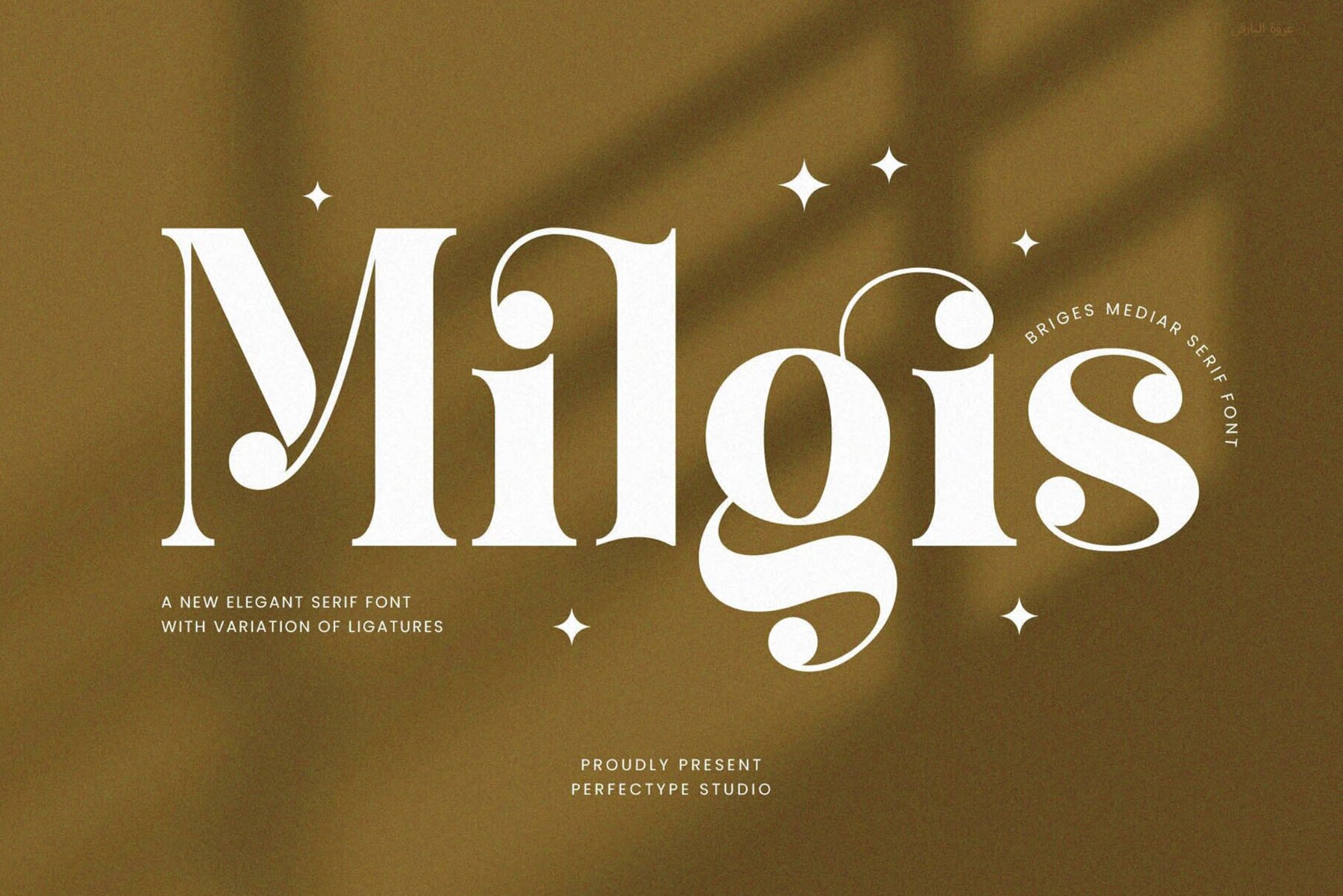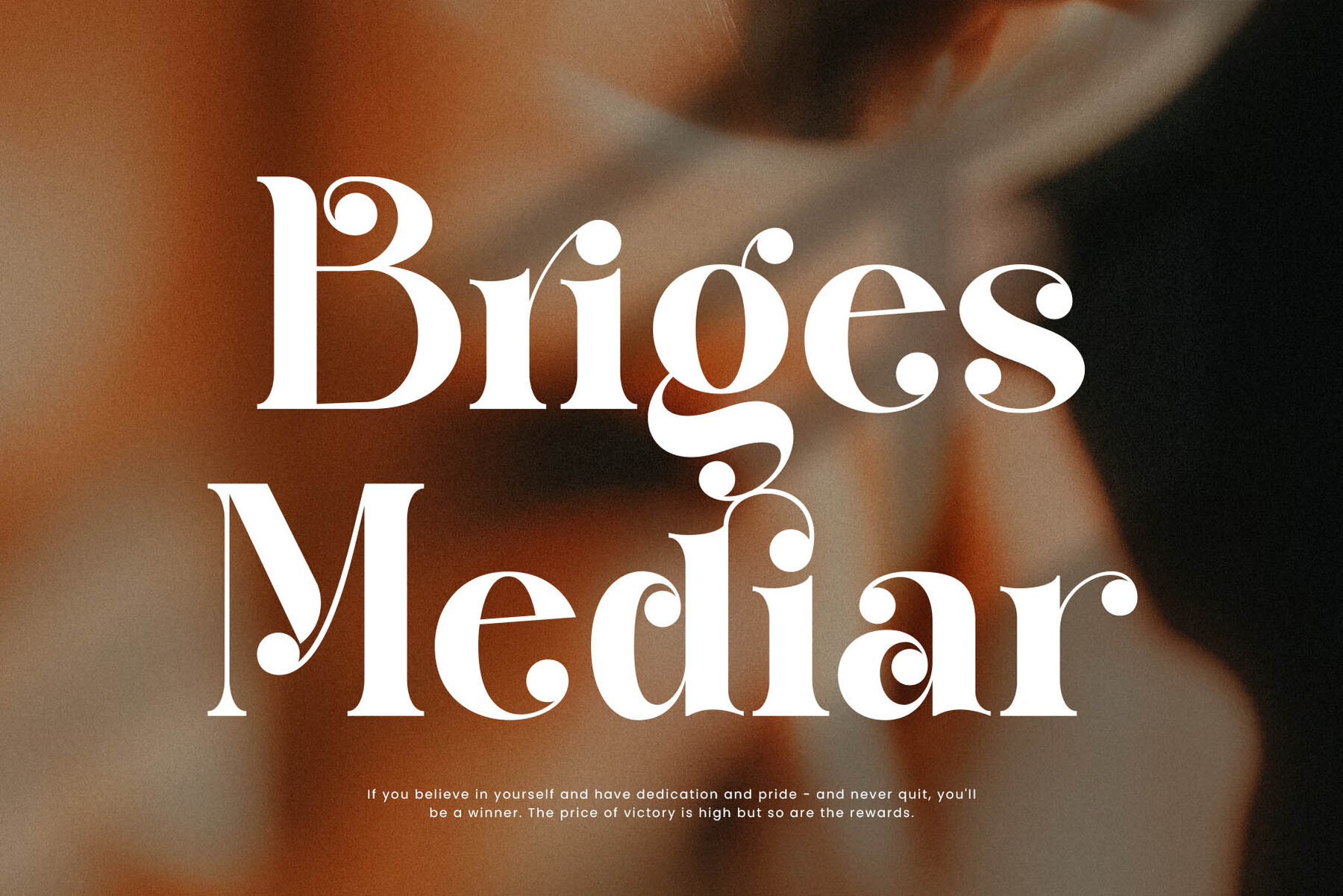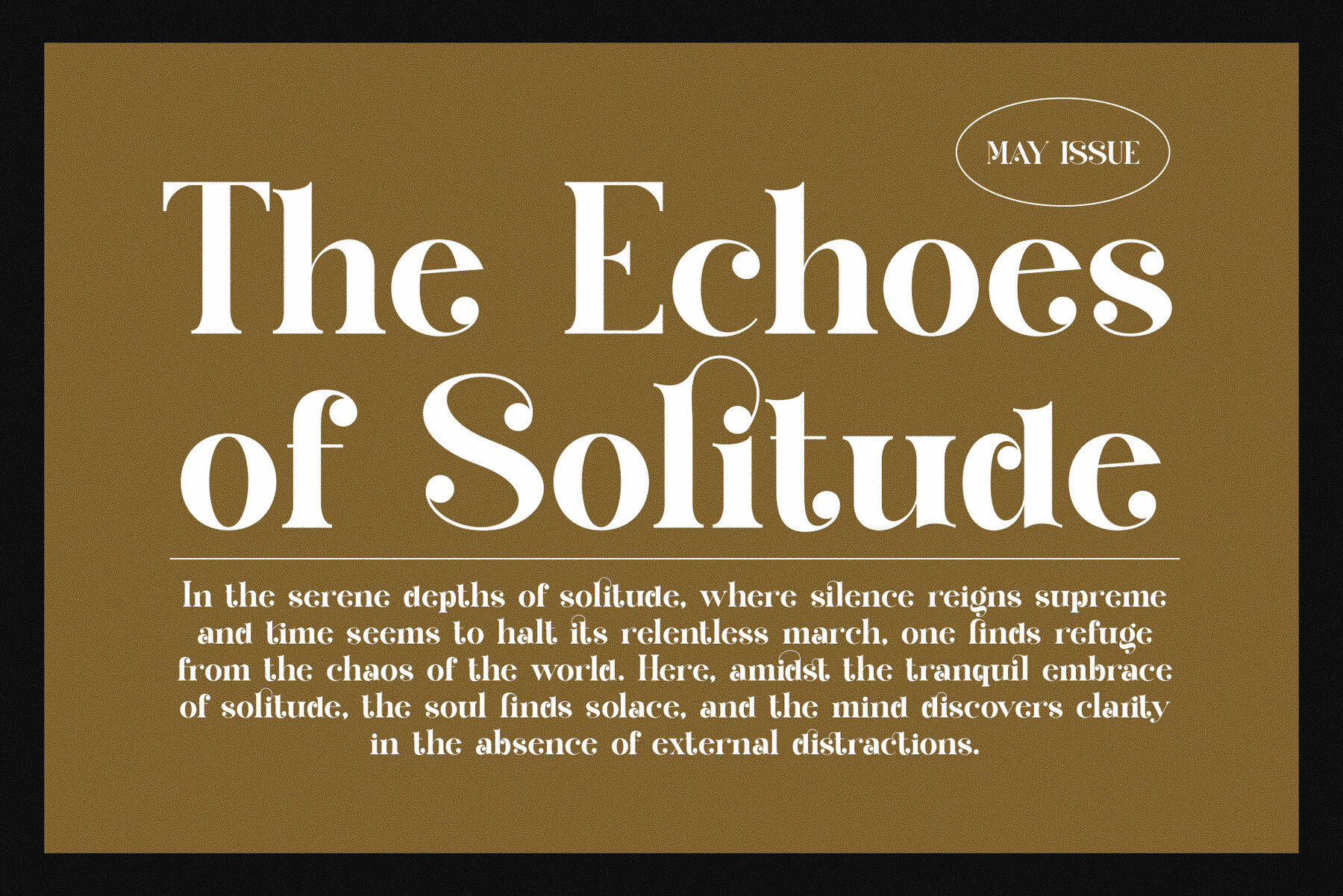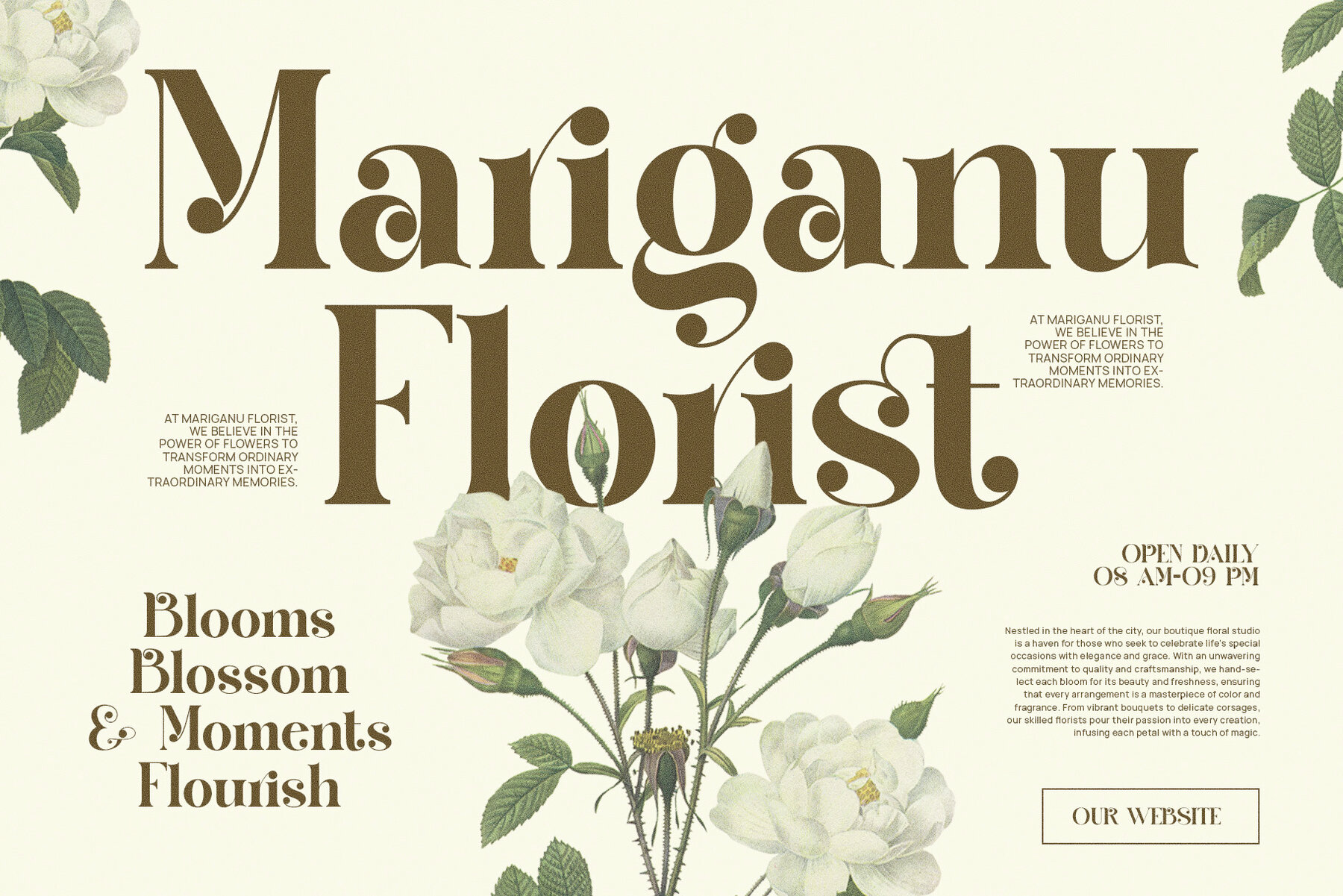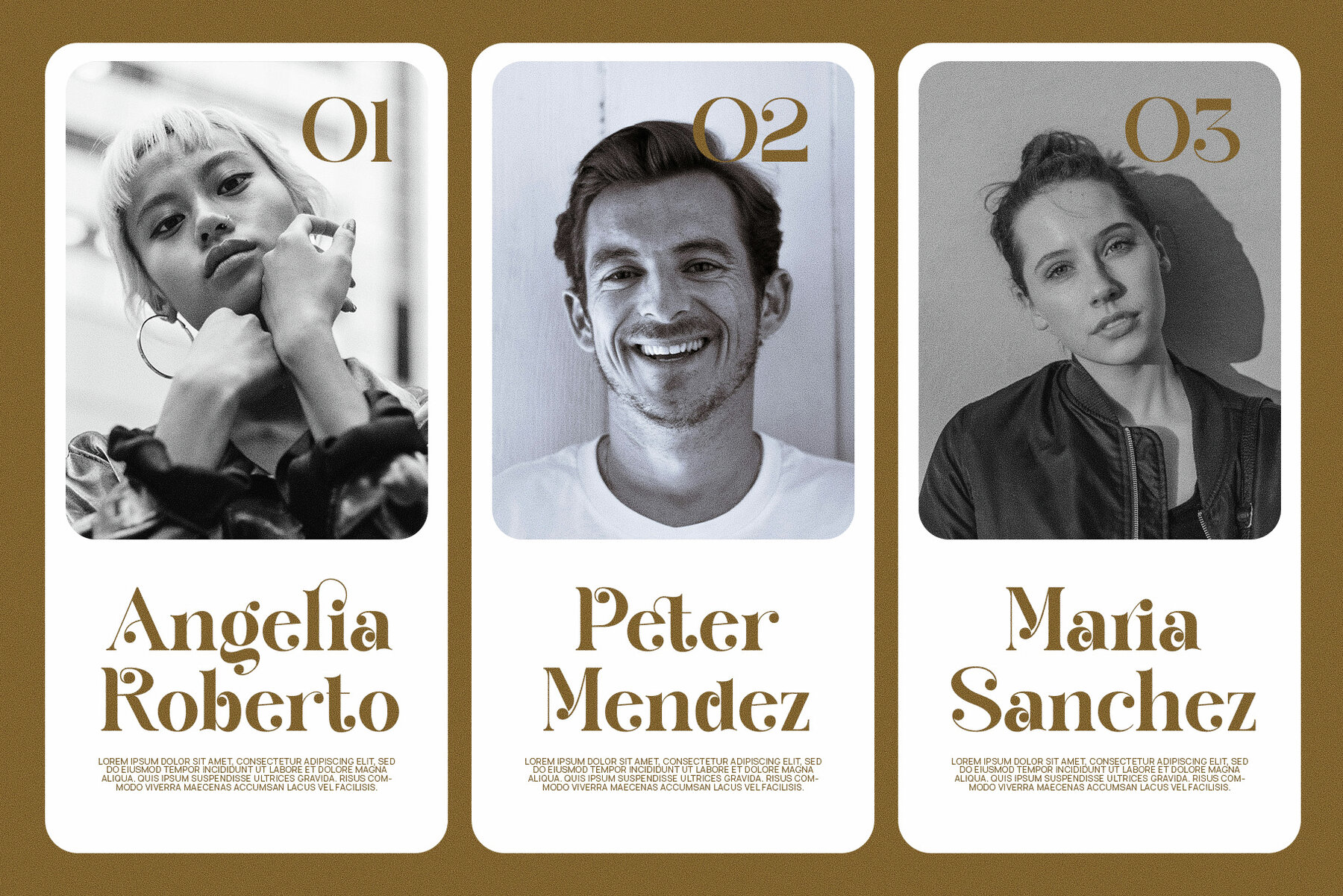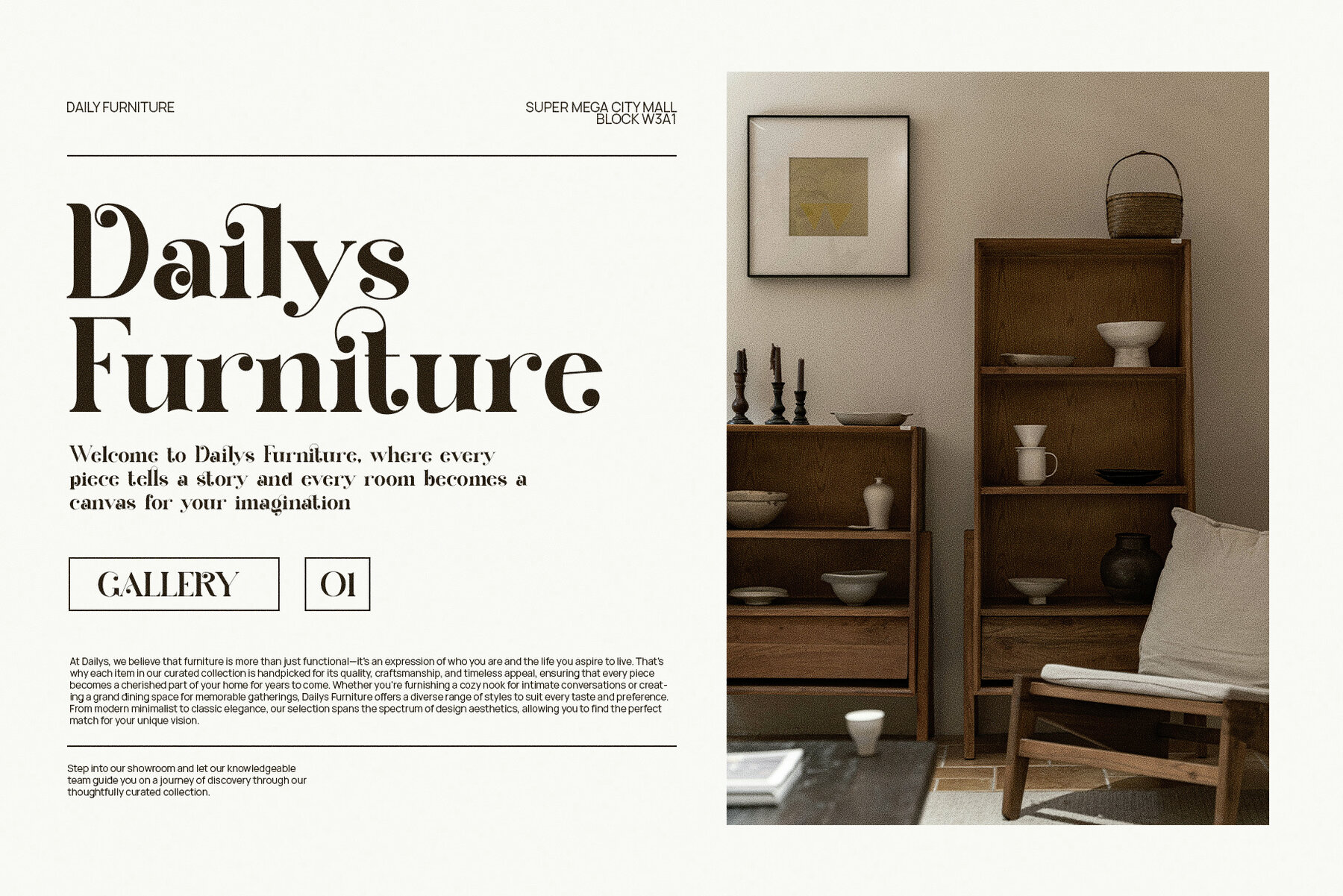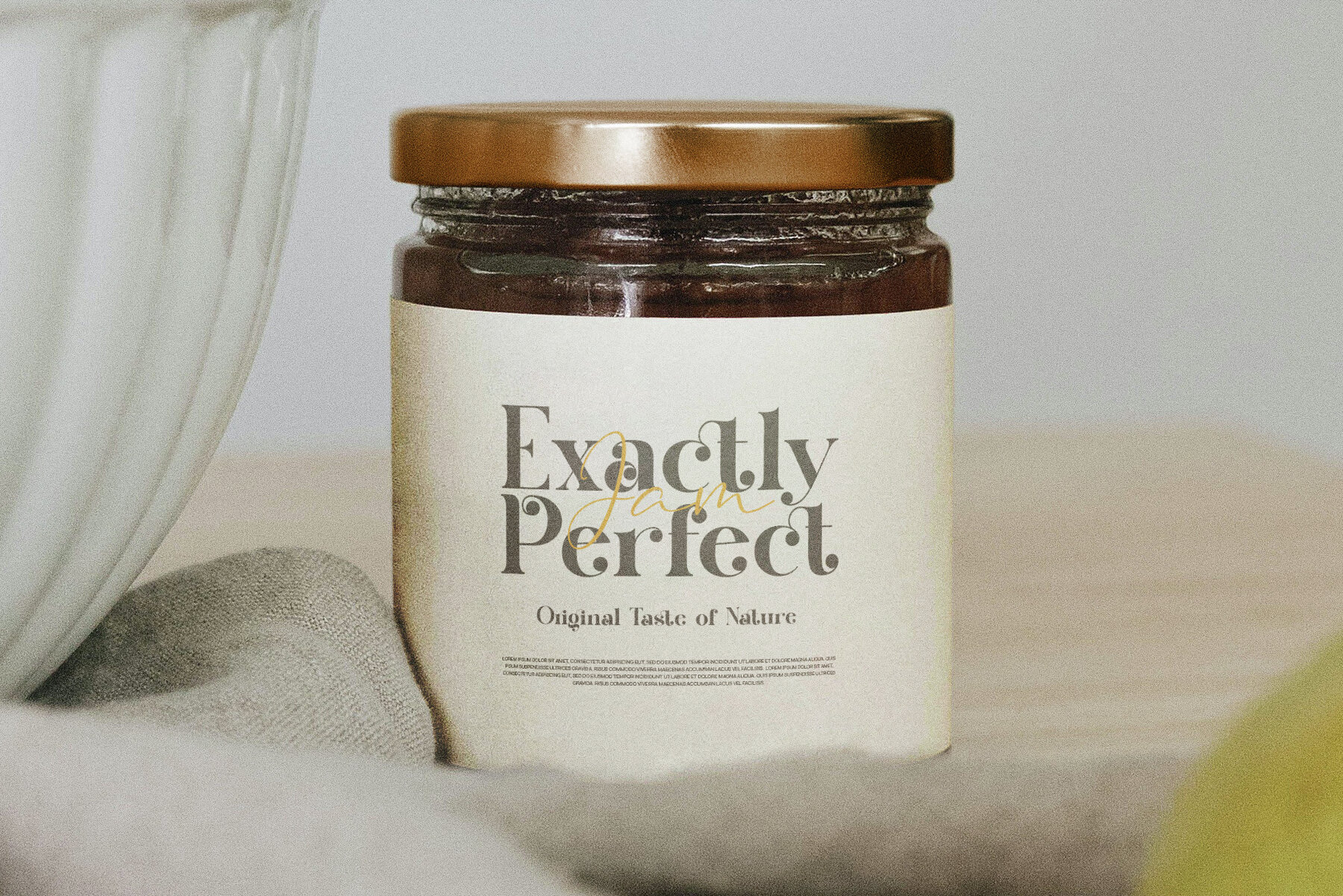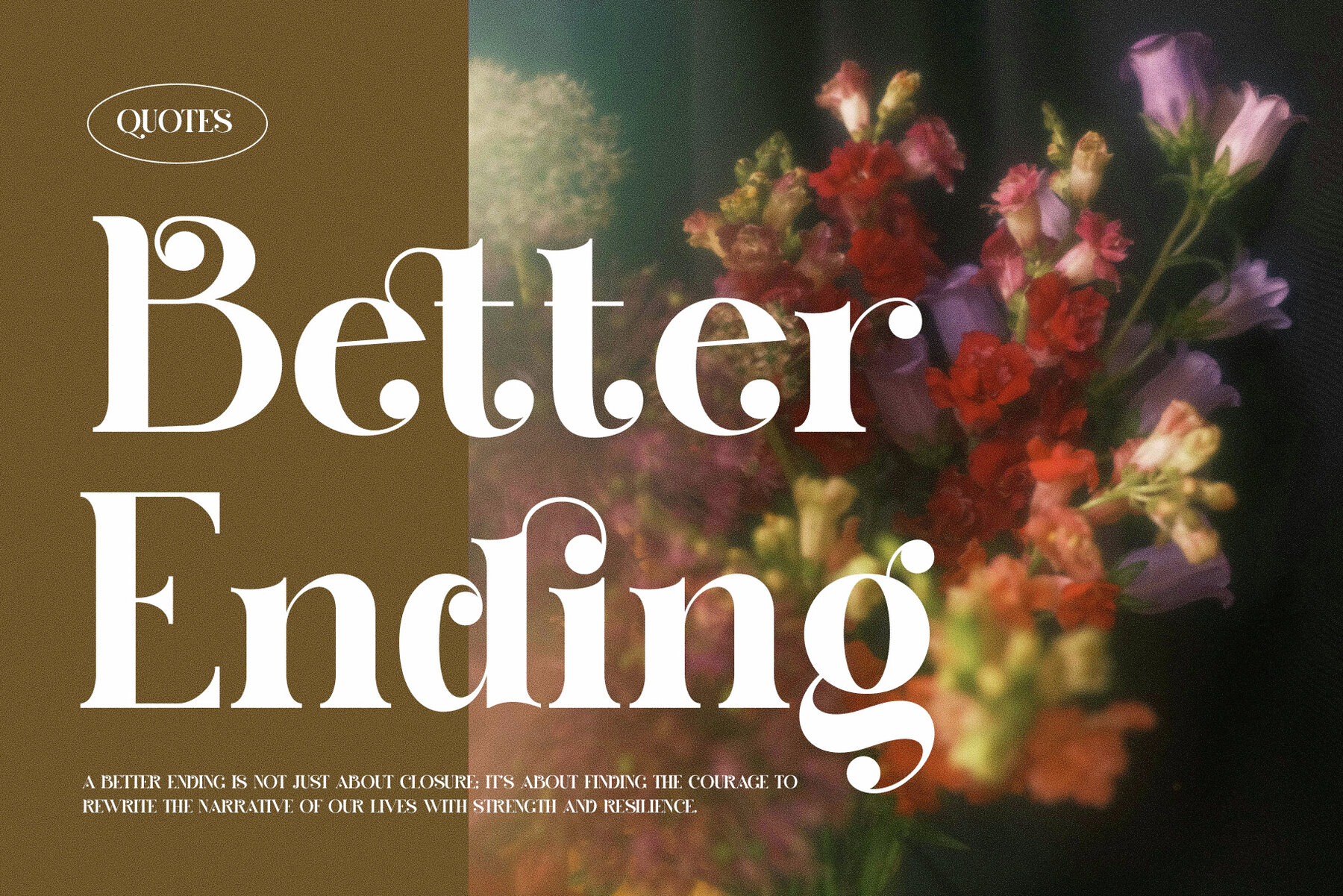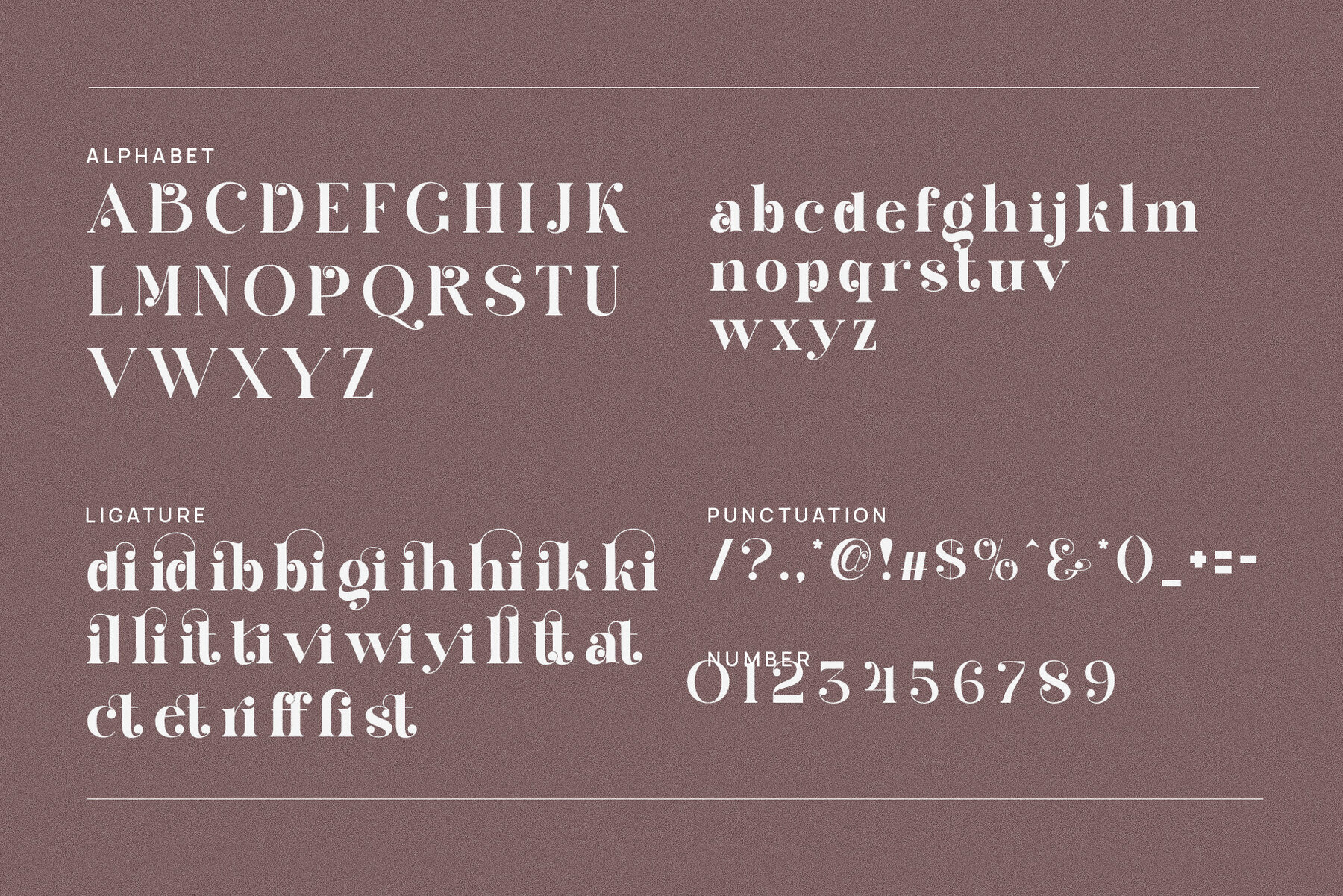
Milgis Font
Milgis
Milgis Elegant Serif Font encompasses both tradition and modernity, offering a sophisticated choice for exceptional design. With its blend of traditional serif elements and a contemporary twist, Milgis provides an elegant and bold statement, perfect for branding, luxury logos, and high-end advertisements. The elegant design of Milgis ensures clarity even at smaller sizes, making it ideal for magazines, websites, and impactful advertising. Its versatility is evident across both digital and print mediums, seamlessly conveying luxury and creativity. Suitable for fashion brands, premium product lines, and gourmet food companies, Milgis adds a sophisticated touch to any project, leaving a lasting impression. Opt for this elegant serif font for your next sophisticated and timeless design endeavor.Milgis Elegant Serif Font: A Timeless Statement
Unique Features and Applications